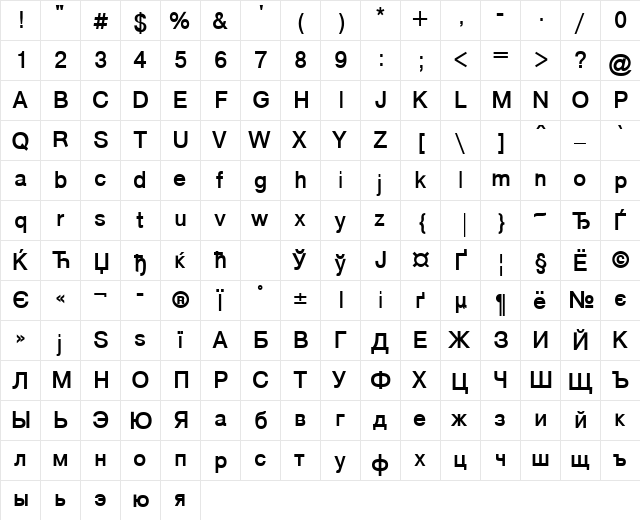
ArtsansLightC Bold
Design Context for ArtsansLightC Typeface
ArtsansLightC offers clean, dependable letterforms without strong stylistic allegiance, making it a practical choice for designers who need flexibility. Its bold stroke weight gives it real presence on the page.